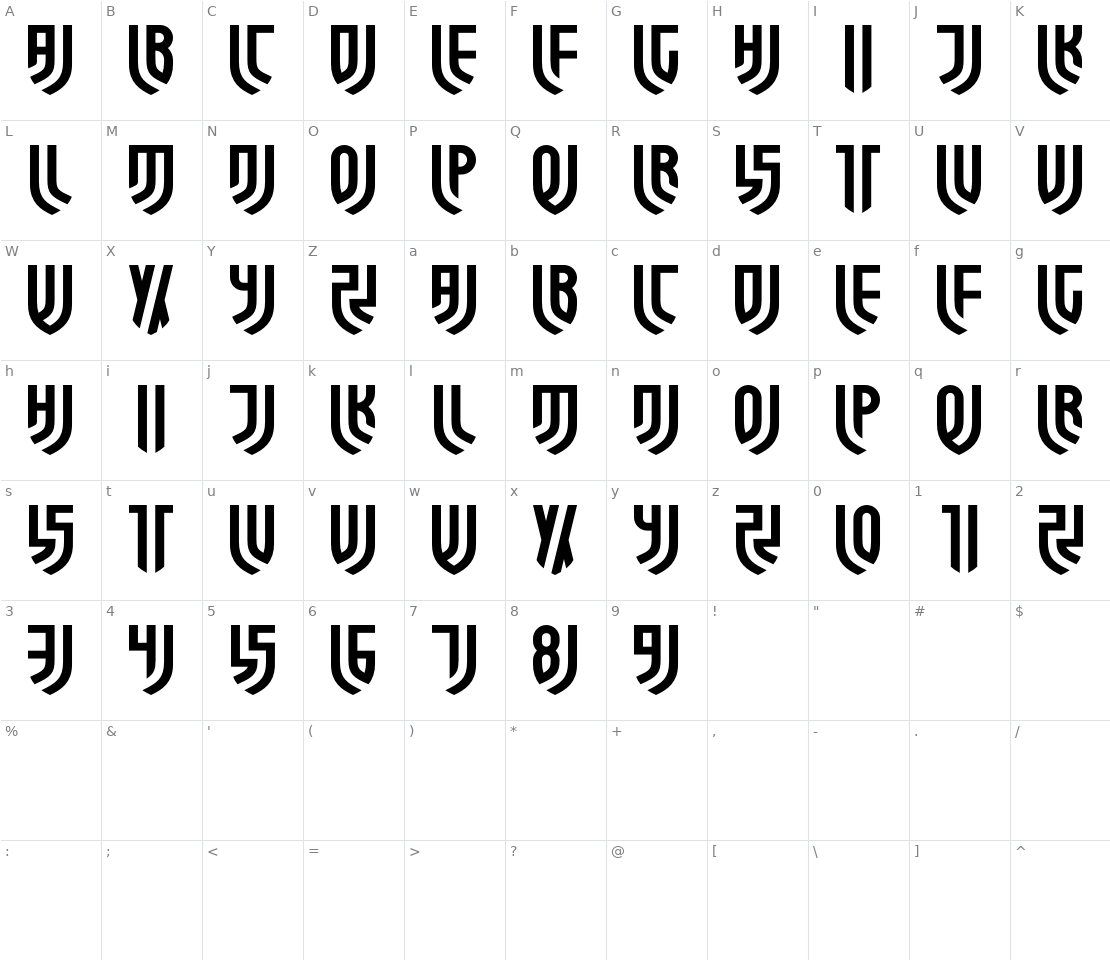
Forza Juve
Forza Juve is a bold, angular geometric display face from Kassymkulov Design, clearly rooted in the visual language of football branding. The letterforms are sharp and modern with a structural rigidity that channels the clean, badge-like aesthetic of contemporary sports identity design. Best at large sizes for headlines, team merchandise, event graphics, and anything that needs to hit with athletic intensity.